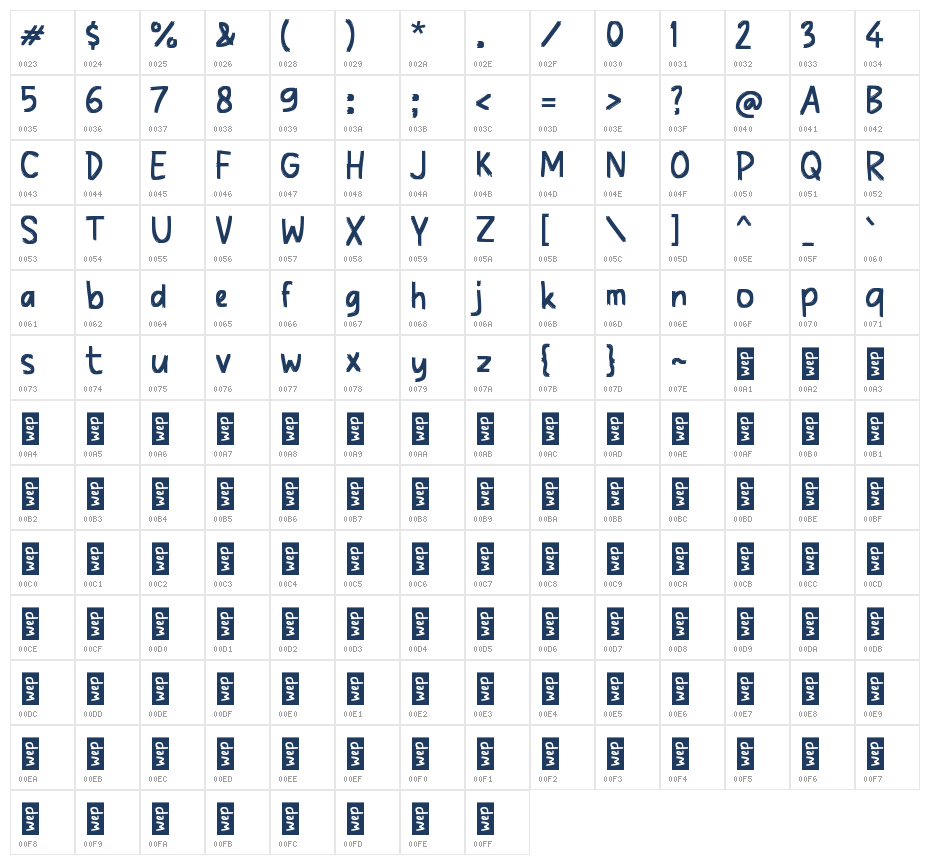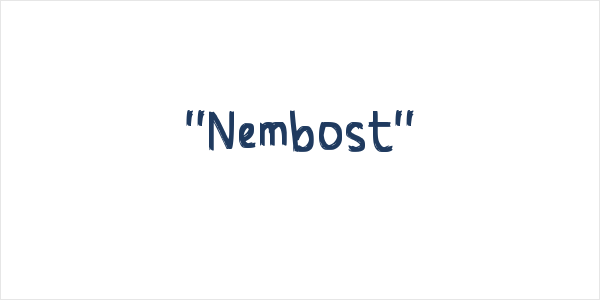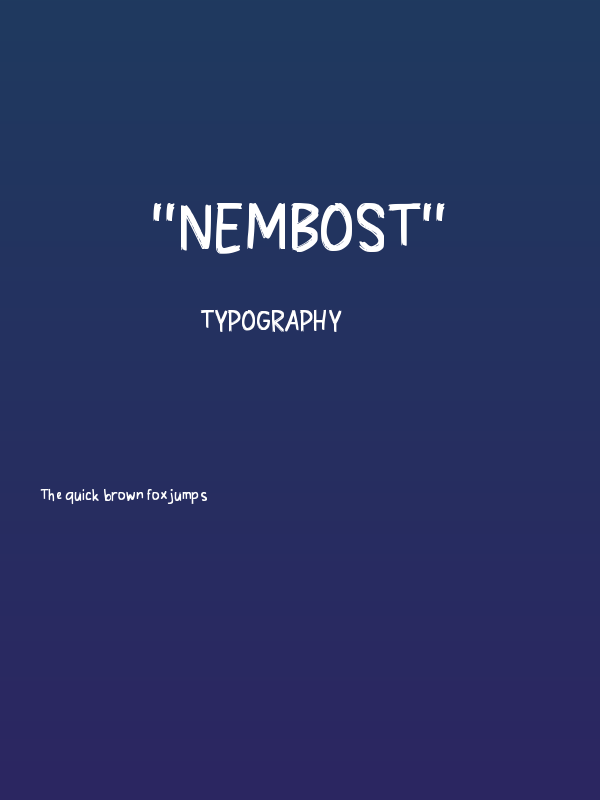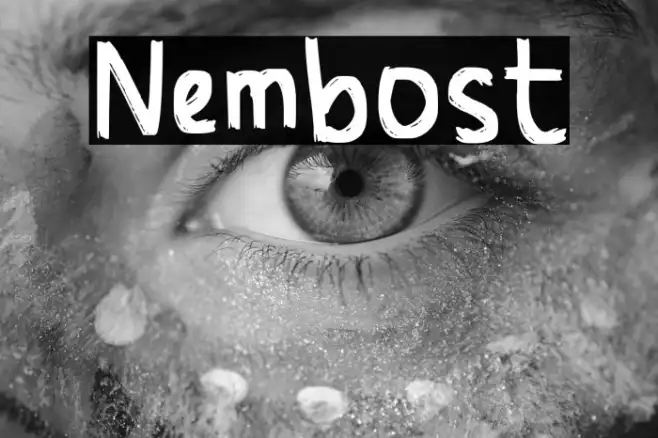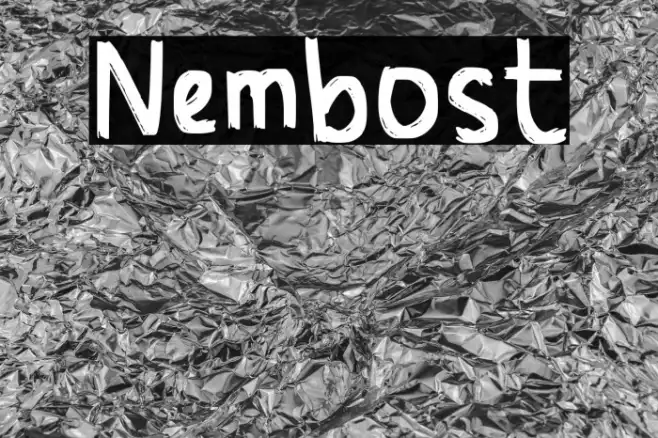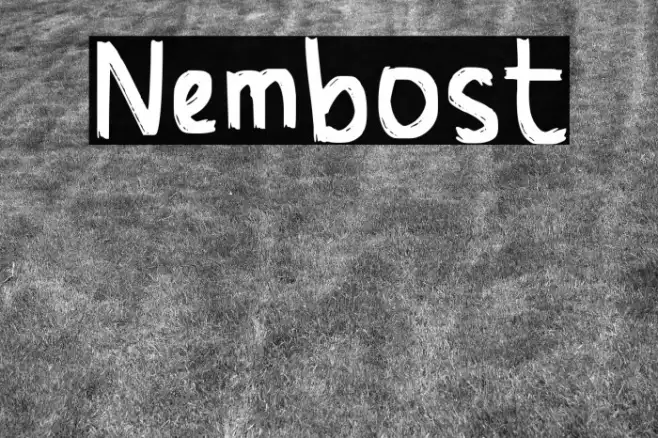
"Nembost" Font
"Nembost" Description
Playful, handwritten style font with irregular, casual strokes.
| Overall Style | Casual, Playful, Informal |
| Use Case | Headlines, Body text, Logos, Creative projects |